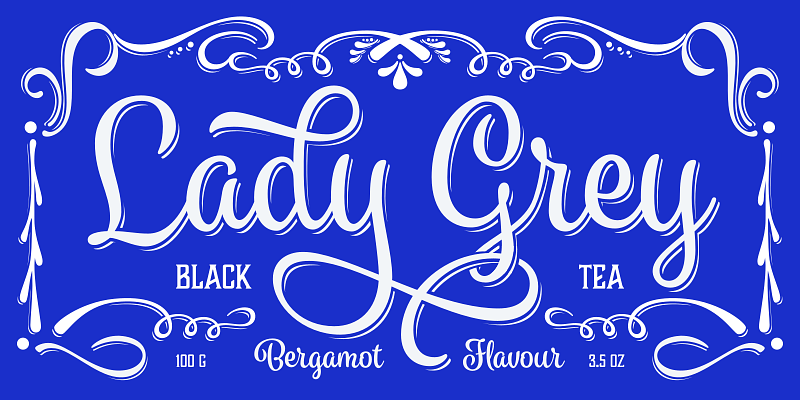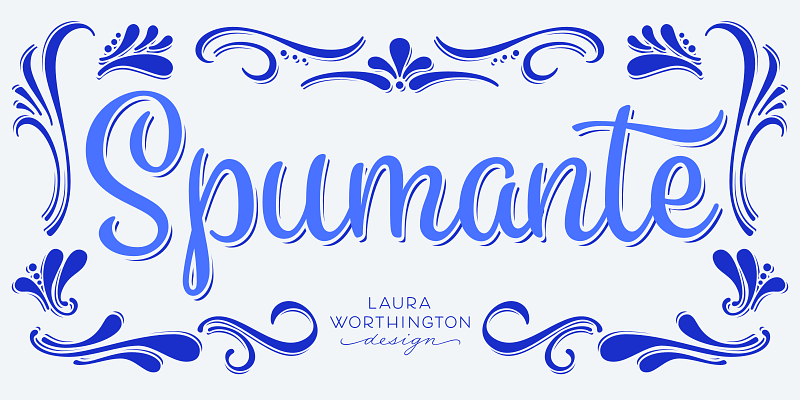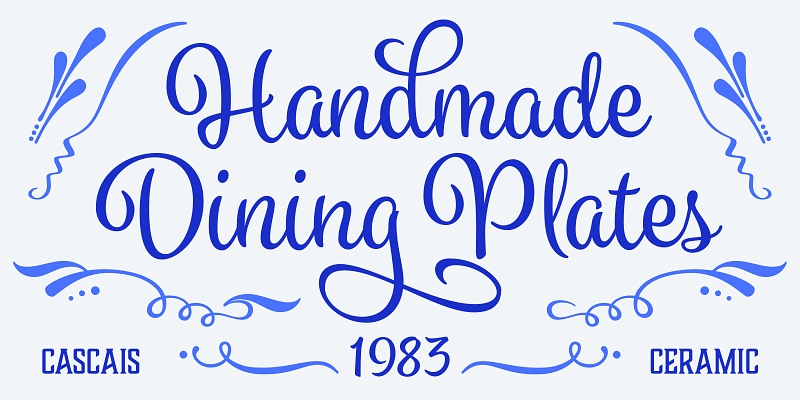
A slim, semi-connected script with lithely upright curves, Spumante is ideal for food packaging and menus, cosmetic labels, book covers, or greeting cards and invitations. Dress it up with over 200 swashes, alternates, and ornaments, or use the titling alternates for a minimalist, unconnected look.